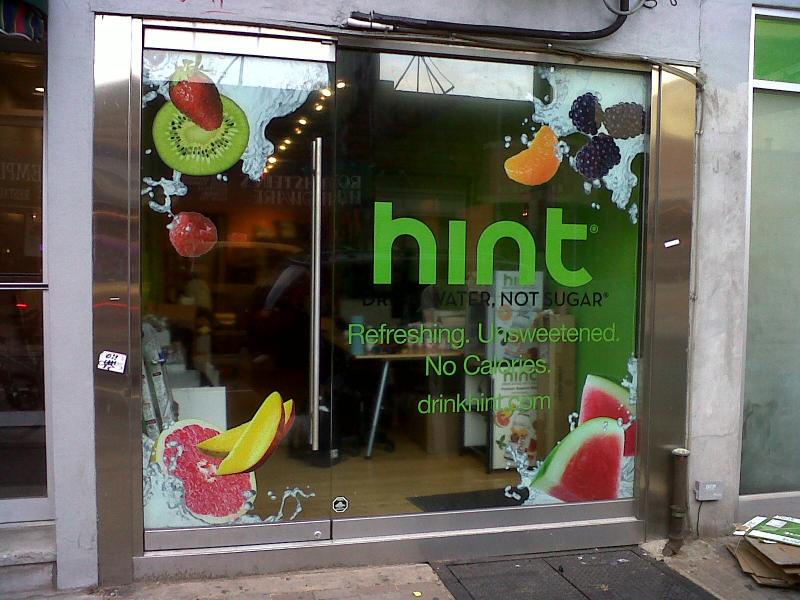
anyone know the font of the word "hint"
on my system i have a font called 'curls' that matches it, but cant seem to find it on the net...bauhaus is close, but the 't' is different